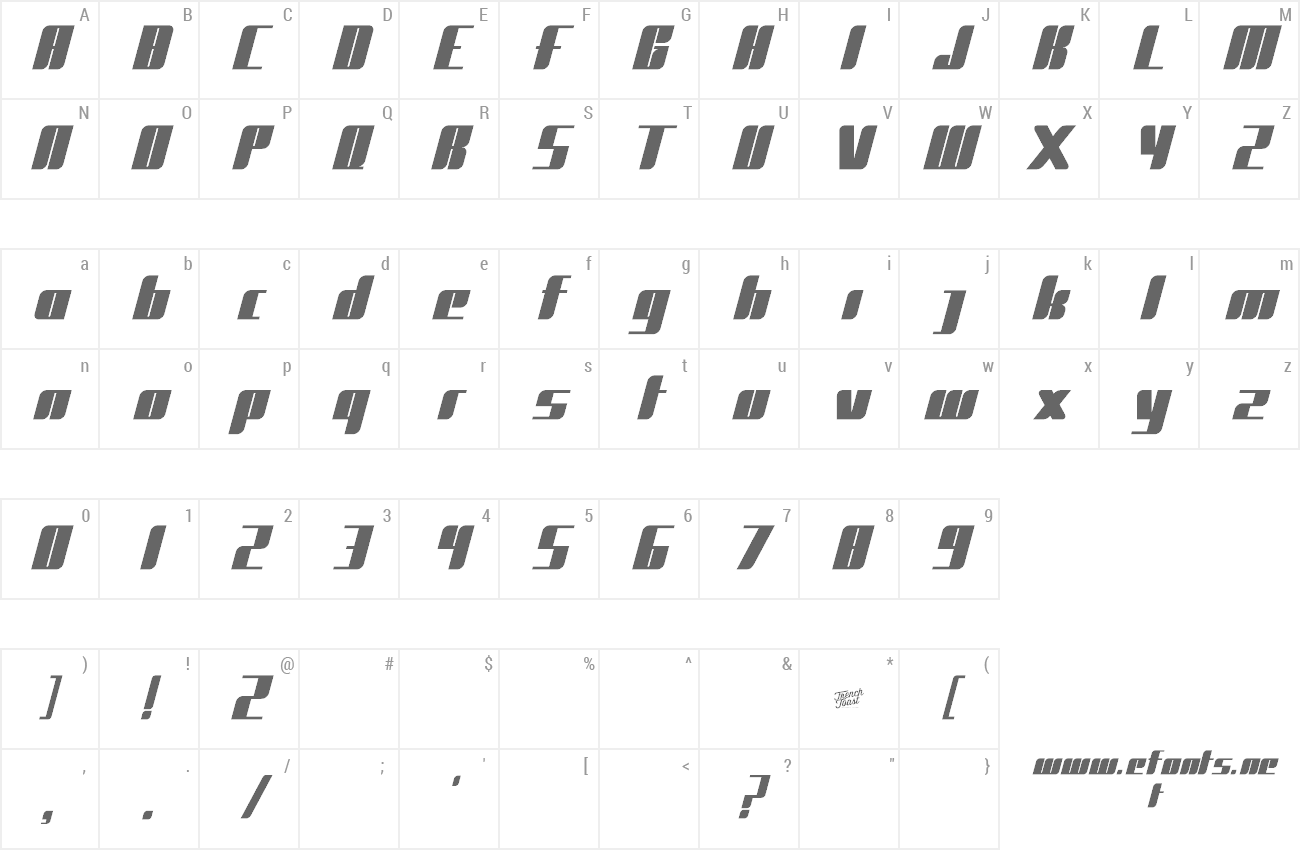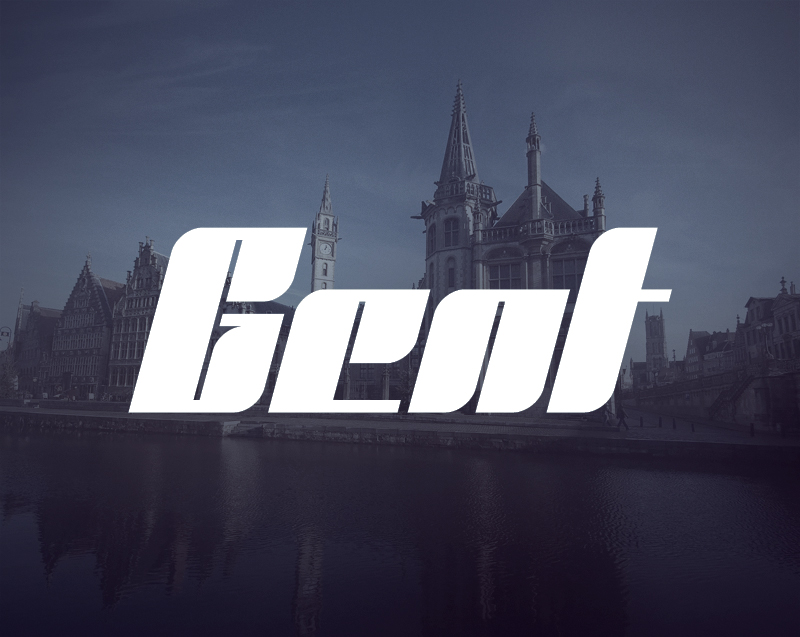
| Font name: | Gent |
| Author: | Fnkfrsh |
| Note by Fnkfrsh | |
| Gent is a free bold italic typeface designed by fnkfrsh. Gent typeface is perfect for big Bold Headlines and displays that need a slightly modern look. |